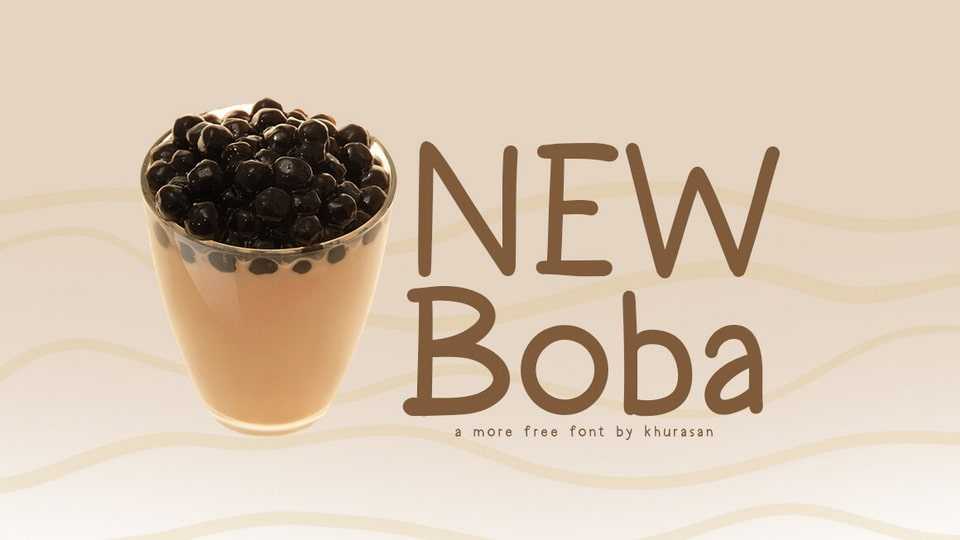
Download New Boba font, a cute comic typeface that brings a heartwarming touch of adorable charm and playful storytelling to your designs. New Boba font features a simple and clean design, with each letter exuding a sense of lively movement.